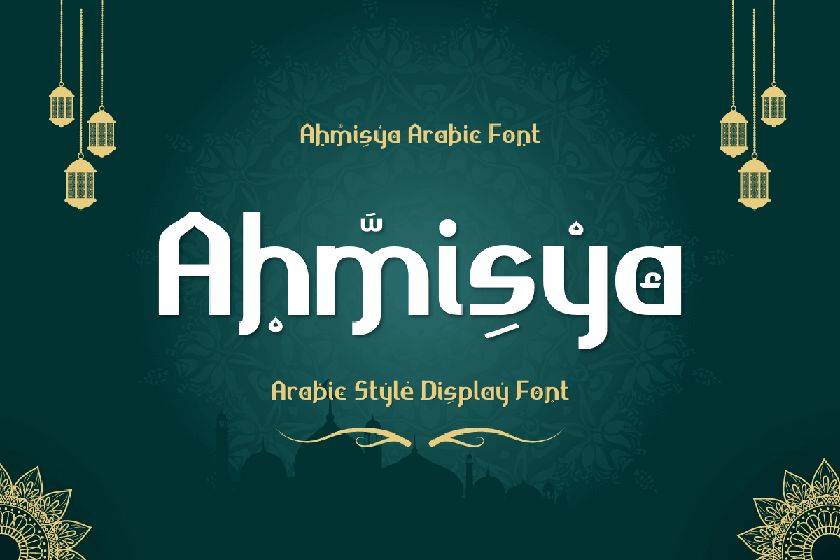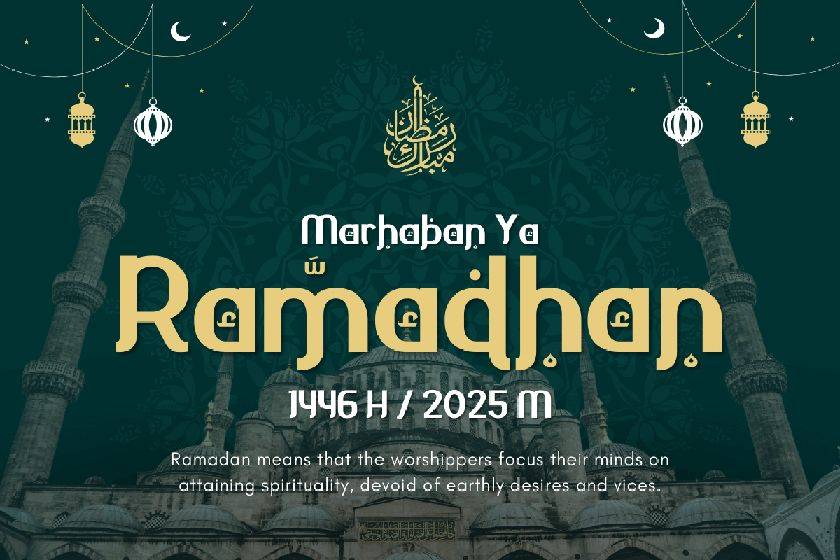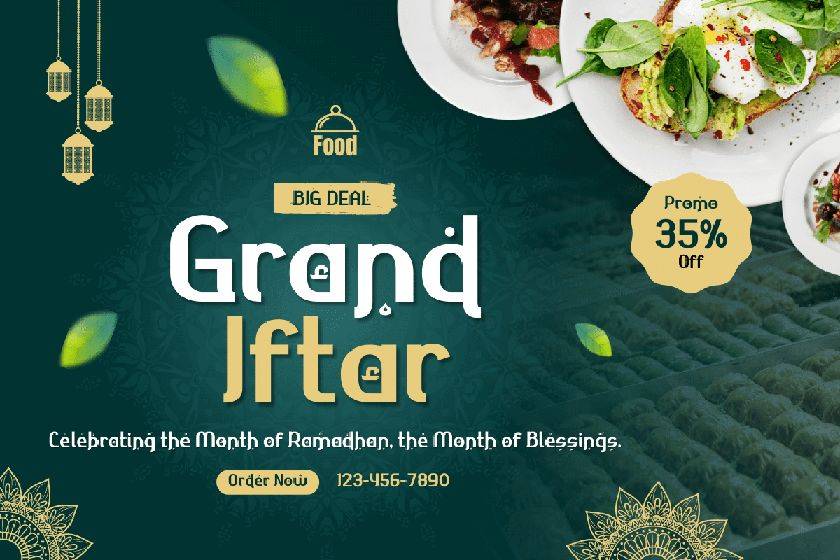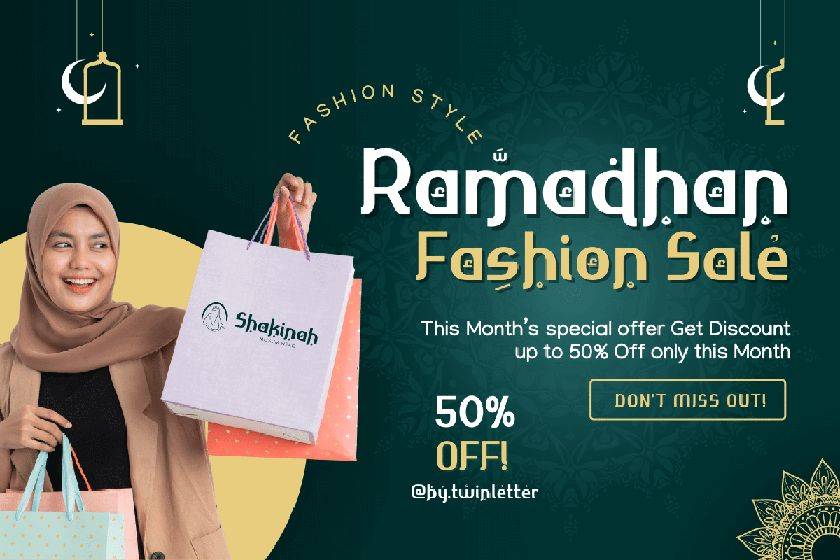
Ahmisya is a distinctive sans serif font with a condensed, bold structure and a modern geometric feel. Its unique letterforms feature sharp angles and creative curves, giving it a futuristic yet readable style that works well for striking headlines, logos, and branding where a strong, contemporary impression is desired. This font’s quirky design elements add personality, making it ideal for creative projects, fashion branding, and editorial use that seeks a fresh, standout look.
Ahmisya Font
About Ahmisya Font